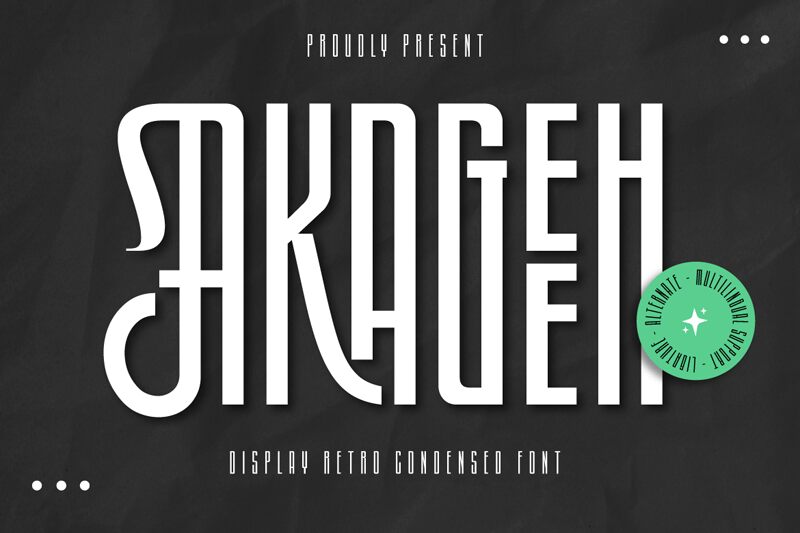
AKAGEEH trial Regular
Akageeh, a captivating sans-serif font crafted by the talented duo at Twinletter, exudes a refined and elegant aesthetic. With its slender, condensed form, this light-weight typeface presents a striking visual appeal, seamlessly blending modern sophistication with timeless charm. The clean lines and subtle curves of Akageeh create a sense of effortless sophistication, making it an exceptional choice for a wide range of design applications.
Akageeh's versatility shines through, making it a versatile option for branding, editorial layouts, and sleek digital interfaces. Its condensed nature allows for efficient text composition, while the light weight lends itself to an airy and visually appealing presentation. Whether you're crafting a high-end fashion editorial, designing a minimalist website, or curating a modern packaging solution, Akageeh's captivating presence will undoubtedly elevate your creative vision.